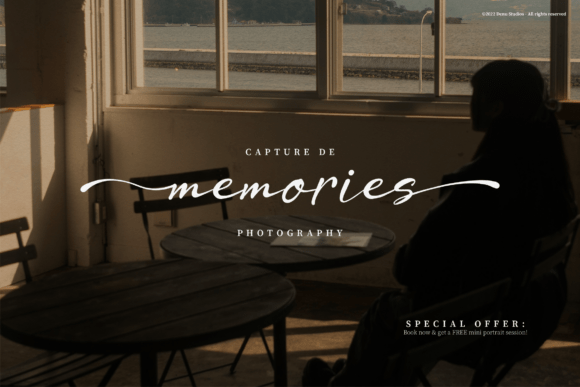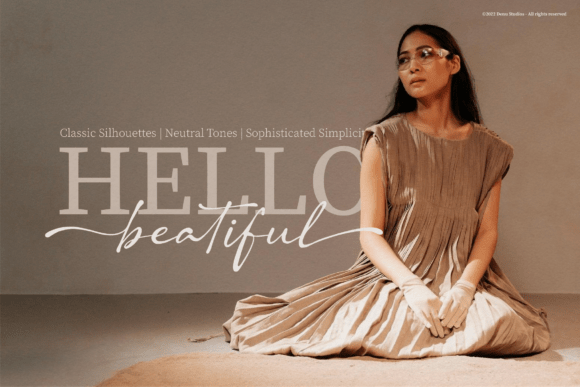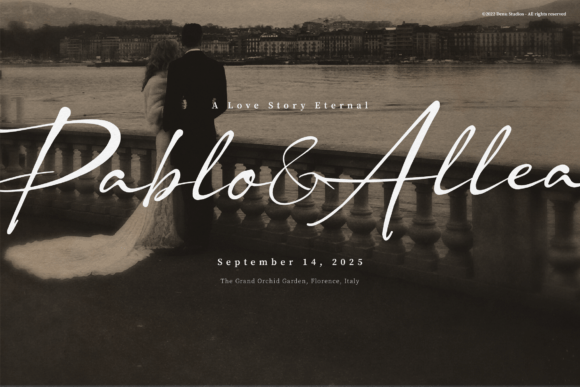
Introduction to Dengacho Signature Font
As designers, we’ve all been there – staring at a blank canvas, trying to bring a concept to life, and desperately searching for the perfect font to give it that extra oomph. For me, it’s the moment when a design starts to feel truly alive, and that’s exactly what the Dengacho Signature Font can do for your next creative project.
With its refined and stylish script, this font is a game-changer for designers looking to add a touch of elegance to their work. From branding and wedding invitations to luxury logos and personal projects, the Dengacho Signature Font is the perfect design resource to elevate your high-quality designs.
Not only is the Dengacho Signature Font a stunning addition to any design, but it’s also incredibly versatile, offering ligatures and alternates to give your work a natural, artistic touch. And the best part? It’s available for free download, making it a must-have in every designer’s arsenal. Whether you’re working on a high-end branding project or a personal passion project, the Dengacho Signature Font is a valuable asset to have in your design toolkit.
Dengacho Signature Font
- High-quality, professional design ideal for creative projects
- Transparent background for easy layering and customization in design projects
- Designed with precision, offering crisp and clear typography for print and digital applications
Honest Review: Dengacho Signature Font
I recently had the chance to try out the Dengacho Signature Font, and I must say it’s been a great addition to my design resource library. The font is available for a free download, which is a definite plus in my book. One of the standout features of this font is its high quality and sleek design, making it perfect for any creative project that requires a touch of elegance.
- ✨ The font is highly customizable, allowing me to easily adjust the size, color, and style to fit my project’s needs.
- ✨ The font is available in both regular and bold weights, making it versatile for various design applications.
- ✨ The transparent background option is a nice touch, allowing me to easily layer the font over other design elements.
- ⚠️ The font may not be suitable for very large-scale projects, as it can become pixelated at high resolutions.
- ⚠️ The font’s design may not be as versatile as some other options, limiting its use in certain design contexts.
Overall, I’m really impressed with the Dengacho Signature Font. It’s a great addition to any designer’s library, and I’ve already used it in a few projects with great success. If you’re looking for a high-quality font with a unique touch, I would definitely recommend giving it a try.
Tips for Getting the Most Out of Dengacho Signature Font
Use the Dengacho Signature Font to add a touch of elegance and sophistication to your design projects. Experiment with different font sizes and styles to create a unique look.
Combine the Dengacho Signature Font with a transparent background to create a high-quality design resource.
The Dengacho Signature Font is perfect for:
Business cards, letterheads, and other marketing materials
Wedding invitations, save-the-dates, and other event materials
Branding and logo design projects